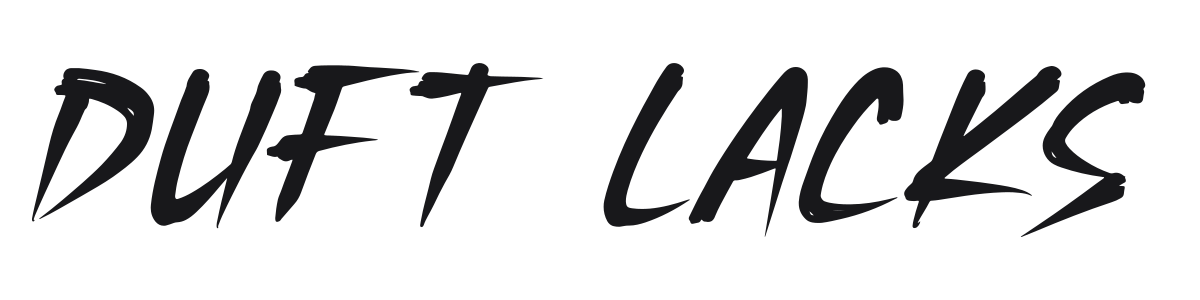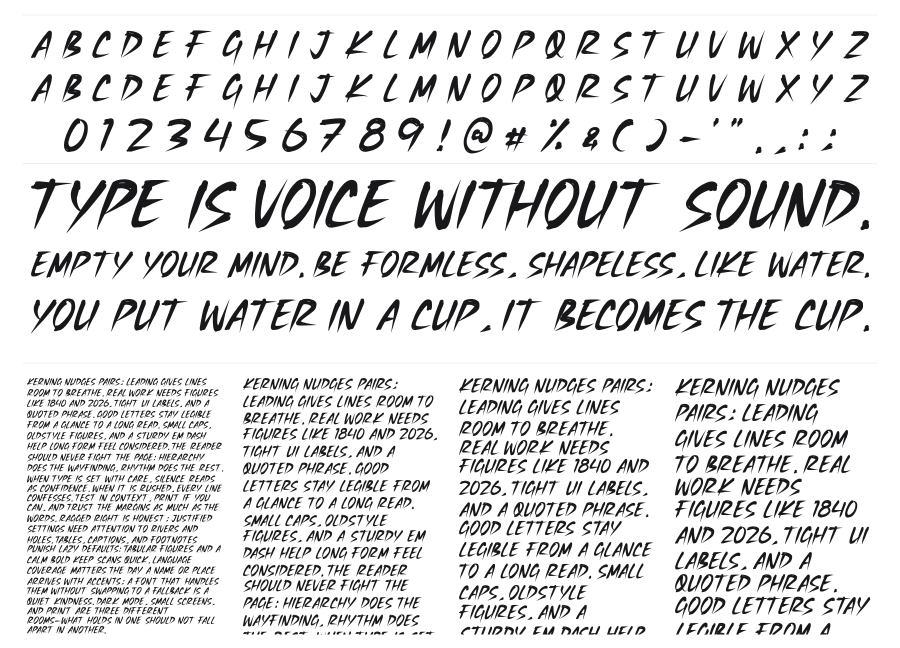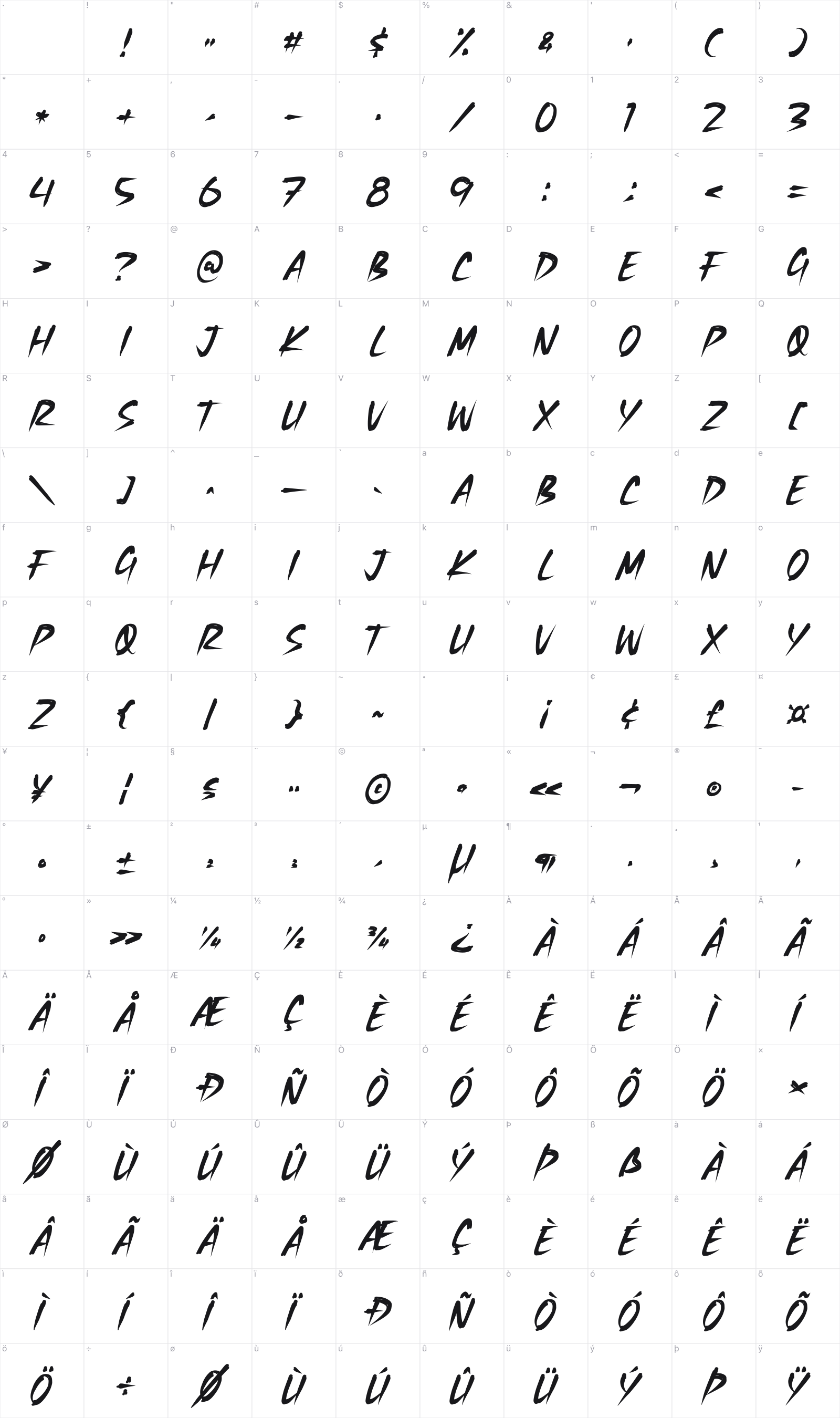
Duft Lacks
Duft Lacks is a bold italic brush script driven by raw energy and aggressive texture. Heavy main strokes split into splintered, jagged terminals that capture the spontaneity of fast brushwork or marker on rough surface. It carries the visual weight of street art and hardcore poster design.